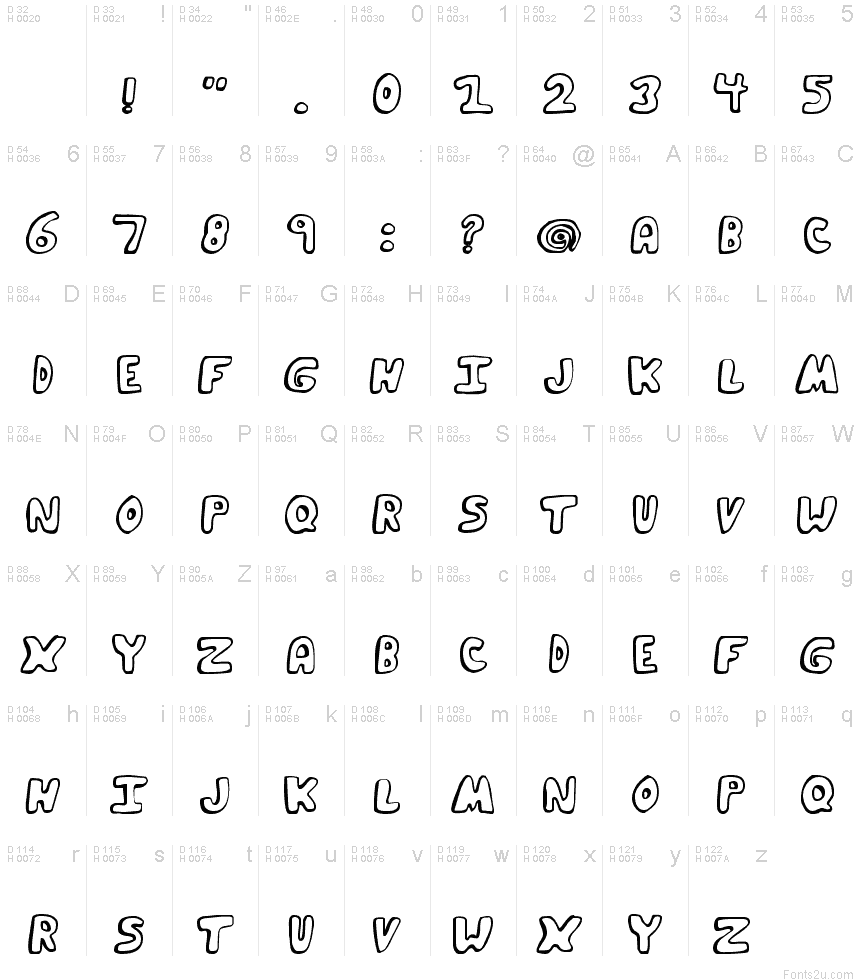
Funky Muskrat Regular
Funky Muskrat font by Swat Kat is a free comic display typeface with chunky, hand-drawn letters that feel like they’ve been puffed up with air. Each character has a thick, inky outline and a hollow interior, giving headlines a bouncy, sticker-like feel that pops off the page. The slight wobble in the strokes keeps things lighthearted and energetic, without slipping into chaos.
Using Funky Muskrat, your titles instantly read as fun, friendly, and just a bit mischievous. This free font shines on kids’ book covers, birthday invitations, party posters, candy or toy packaging, playful logos, and classroom printables. For body copy, pair it with a clean sans serif and let Funky Muskrat stay big and bold in headings so its chunky outlines can really breathe.